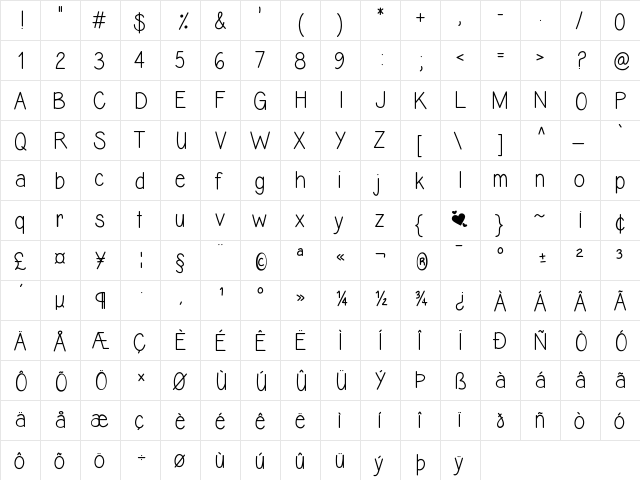
Alexis Marie Medium
| Designer | Vanessa Bays |
Design Context for Alexis Marie Typeface
Alexis Marie takes a measured approach to typography — its balanced proportions and neutral character make it a reliable workhorse for both digital and print work.